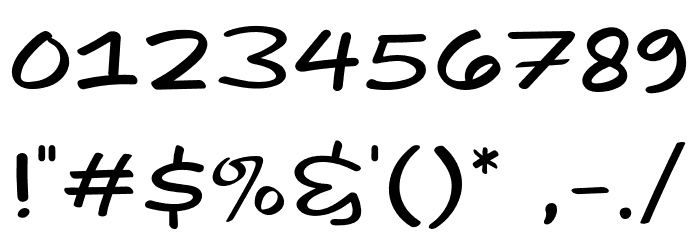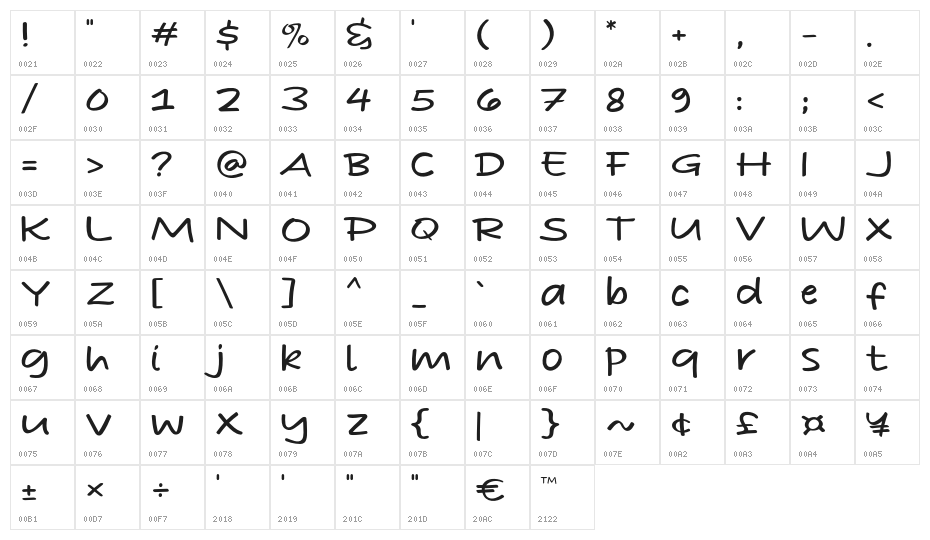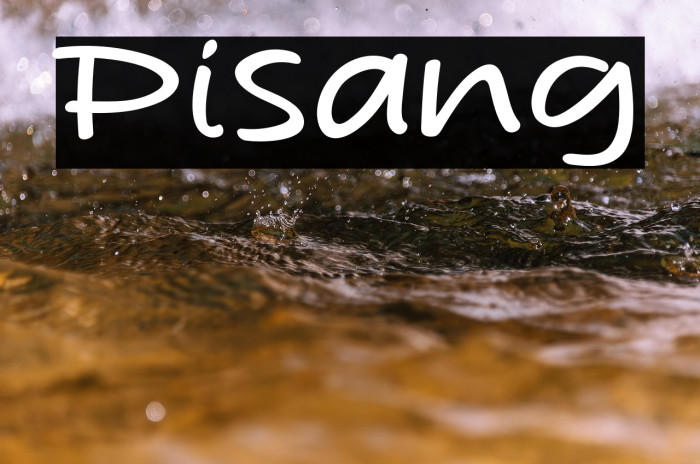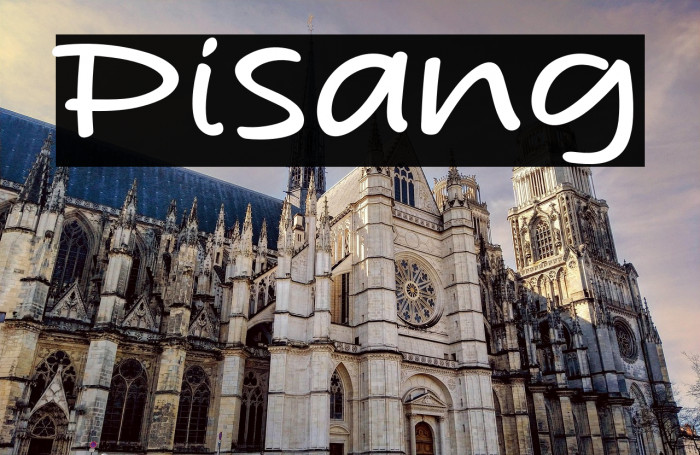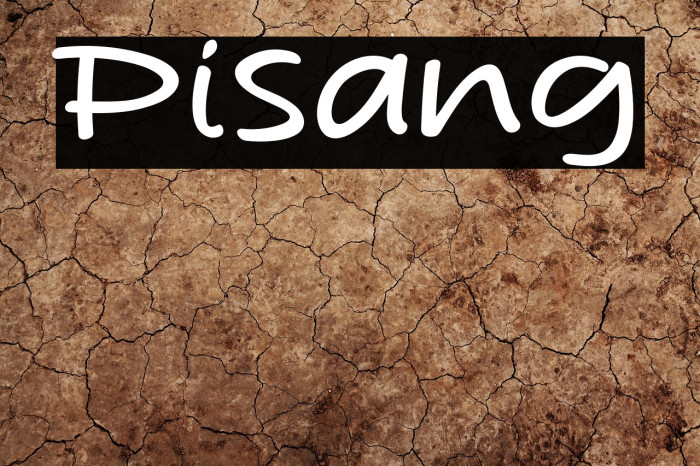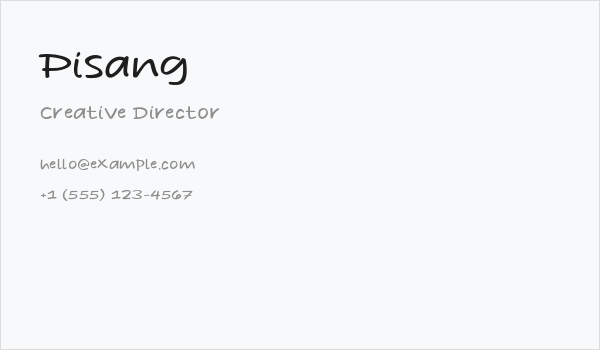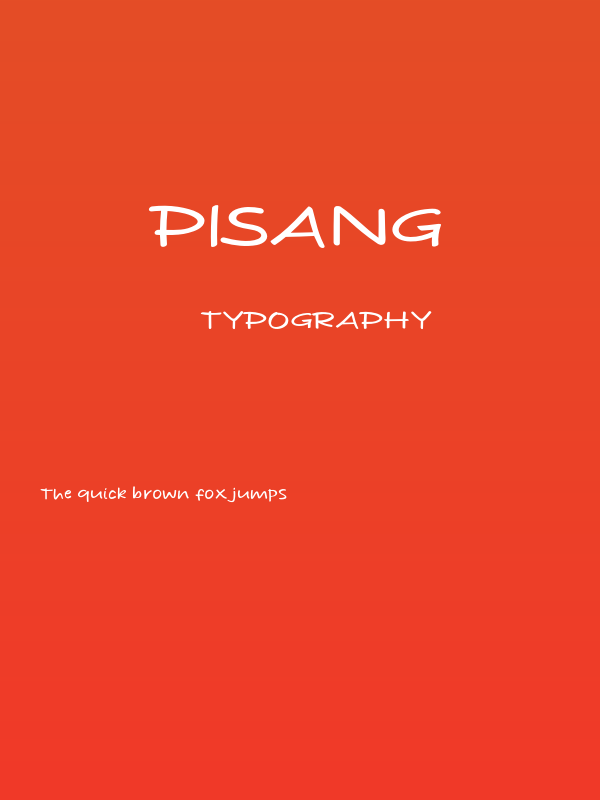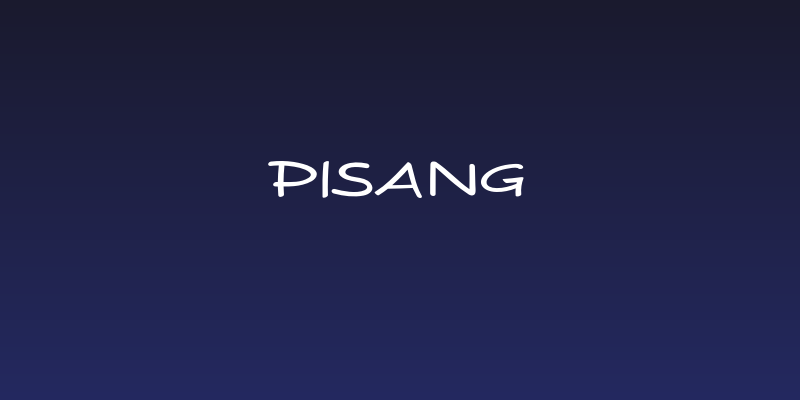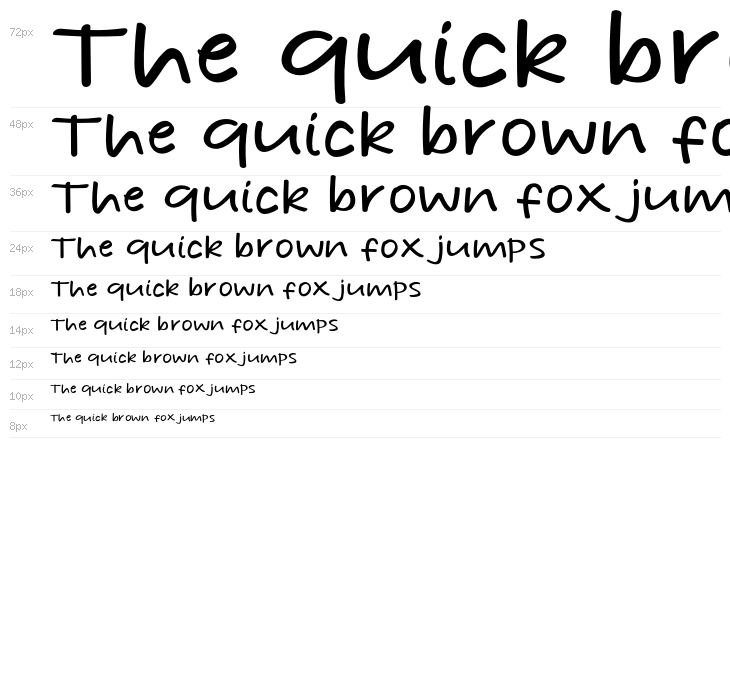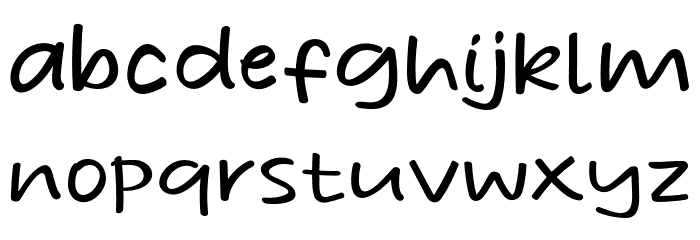
Pisang Font
Pisang Description
This font features a playful and casual handwritten style, characterized by its smooth, flowing curves and slightly irregular letterforms. The uppercase and lowercase letters maintain a consistent rhythm, giving it a friendly and approachable appearance. The numerals and special characters are designed to match the overall aesthetic, ensuring a cohesive look across all text elements. The strokes are moderately thick, providing good readability while maintaining a relaxed feel. This font is ideal for projects that require a personal touch, such as invitations, greeting cards, or informal branding.
| Use Case | Headlines, Informal text, Personal projects |
| Proposed Projects | Ideal for invitations, greeting cards, personal branding, and informal designs. |